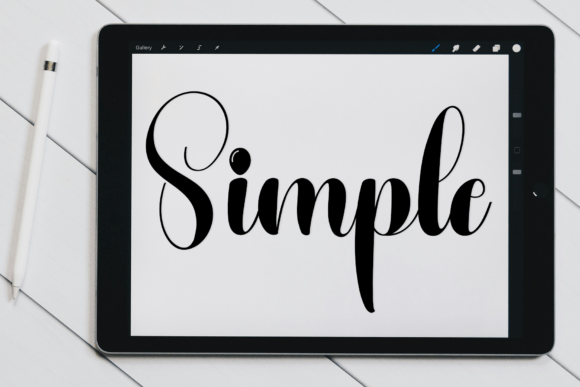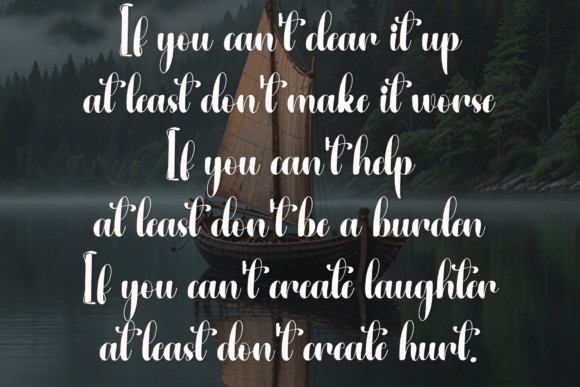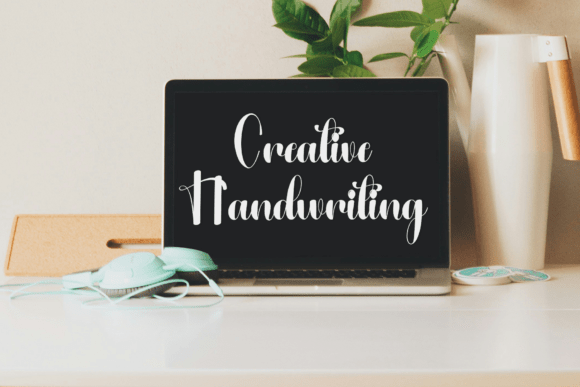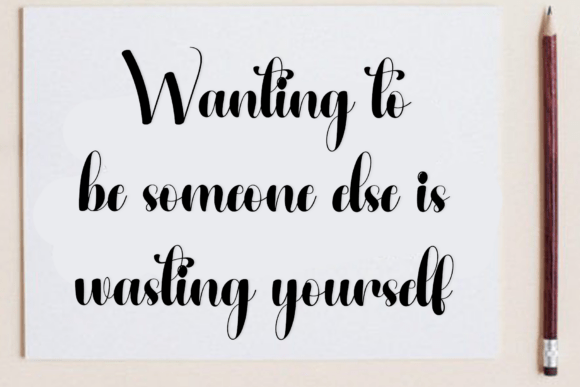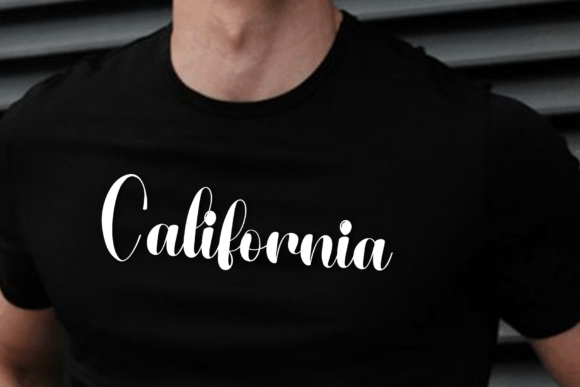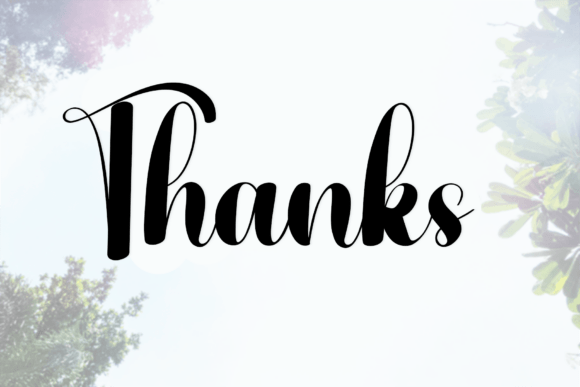
The Sweet Treat of Typography: Discovering Cookies Coating Font
I’ll never forget the design project that led me to discover Cookies Coating font. I was working on a branding project for a local bakery, and I was struggling to find the perfect font that would capture the warm, inviting atmosphere of their freshly baked goods. That’s when I stumbled upon Cookies Coating, and it was love at first sight! 🍪
This deliciously sweet handwritten font has been a game-changer for my design projects, and I’m excited to share its charms with you. In this article, we’ll dive into the world of Cookies Coating, exploring its features, how to use it, and some similar fonts you might enjoy.
A Honest Review: What I Love (and a Few Quirks)
- Soft, rounded edges that give it a comforting feel
- Thick, “coated” look that mimics the texture of homemade treats
- Charming alternates and decorative dots for customization
- Perfect for food packaging, bakery branding, and cozy lifestyle blogs
- Some characters may appear a bit cramped at smaller font sizes
- Limited use of uppercase letters, but the lowercase letters shine
- Requires a bit of experimentation to get the most out of its OpenType features
Cookies Coating font was designed with the intention of capturing the warmth and comfort of homemade treats. The designer, a self-proclaimed baking enthusiast, wanted to create a font that would evoke the feeling of freshly baked cookies straight from the oven. With its soft, rounded edges and thick, “coated” look, Cookies Coating is the perfect typography to add a touch of sweetness to your designs.
Q: What type of designs is Cookies Coating best suited for?
A: Cookies Coating is perfect for food packaging, bakery branding, and cozy lifestyle blogs. Its warm and inviting feel makes it ideal for designs that need to evoke a sense of comfort and friendliness.
Q: Can I pair Cookies Coating with other fonts?
A: Yes, Cookies Coating pairs well with a variety of fonts, especially those with a similar warm and inviting feel. Try pairing it with pastel colors and organic textures to create a welcoming brand identity.